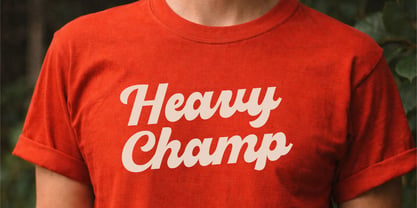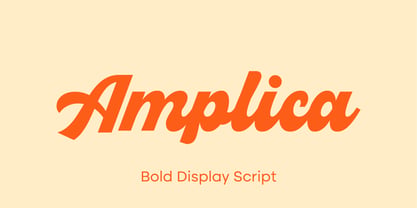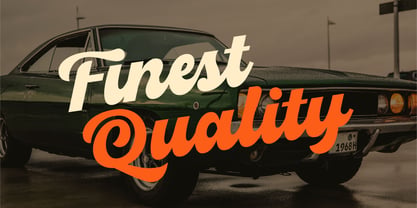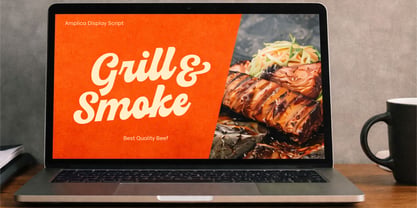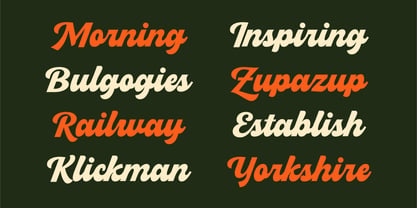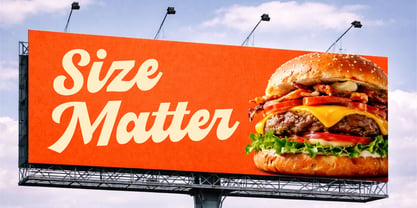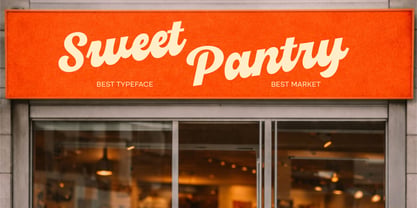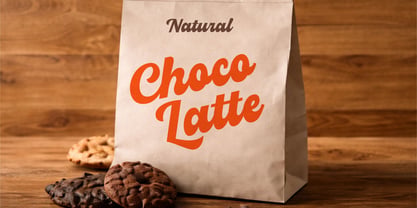
Amplica
by BeonType
The Amplica Font Family was designed by Eko Bimantara, Biyono Ibrahim and published by BeonType. Amplica contains 1 styles. More about this family
Amplica is a bold display script that combines strong character with smooth, flowing curves to create a confident and stylish typographic presence. Its thick strokes, and dynamic brush strokes give the font a modern retro feel that stands out in headlines, branding, packaging, and logo design. Designed to deliver both impact and readability, Amplica works beautifully for food brands, lifestyle products, posters, and creative projects that need a bold, expressive script with a warm and energetic personality.
Designers: Eko Bimantara, Biyono Ibrahim
Foundry: BeonType